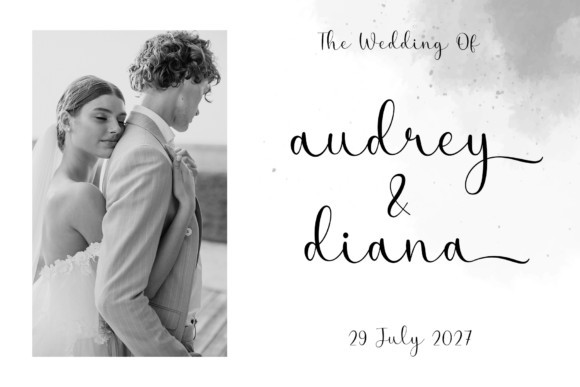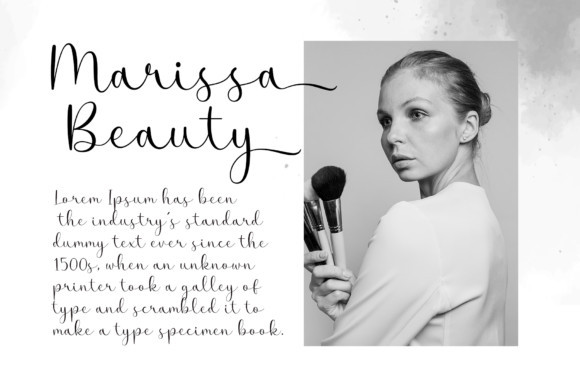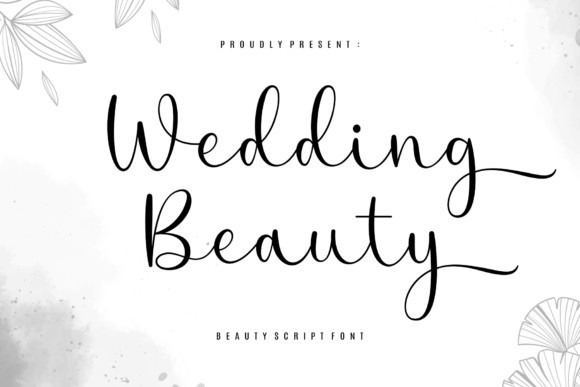
Wedding Beauty Script Font
Wedding Beauty Script Font an elegant script font designed to turn every word into a work of art.This typeface features long, luxurious flourishes and a delicate, rhythmic flow that mimics the finest calligraphic traditions. The Wedding Beauty font is the ultimate choice for high-end wedding stationery, premium skincare branding, and high-fashion editorials.
The Wedding Beauty typeface is a master of “white space” and minimalism, shining brightest on clean, airy layouts and sophisticated packaging. Use the Wedding Beauty font for hero headlines on beauty website headers, magazine mastheads, and formal invitations that demand a touch of class. Its graceful silhouette ensures that your message is delivered with poise, prestige, and a sense of enduring romance.